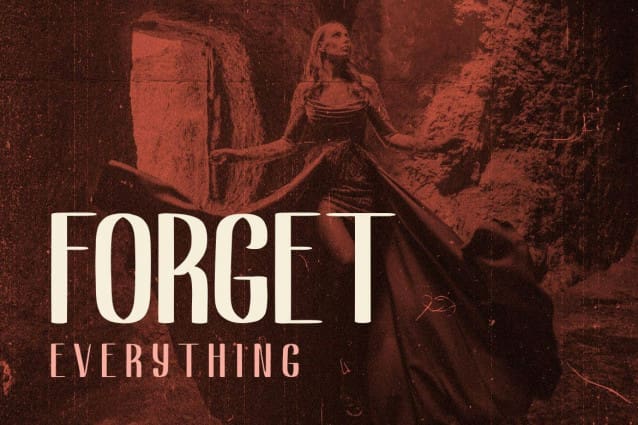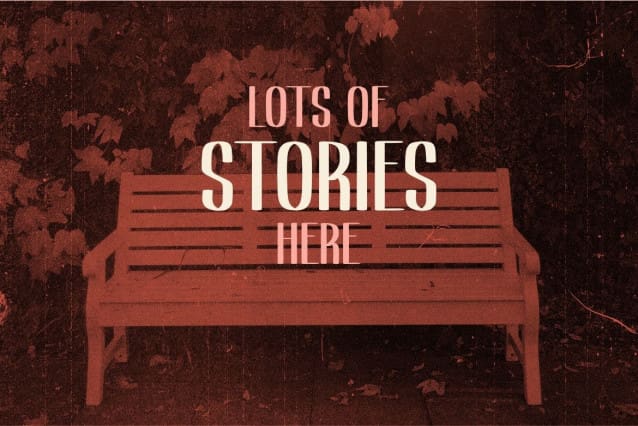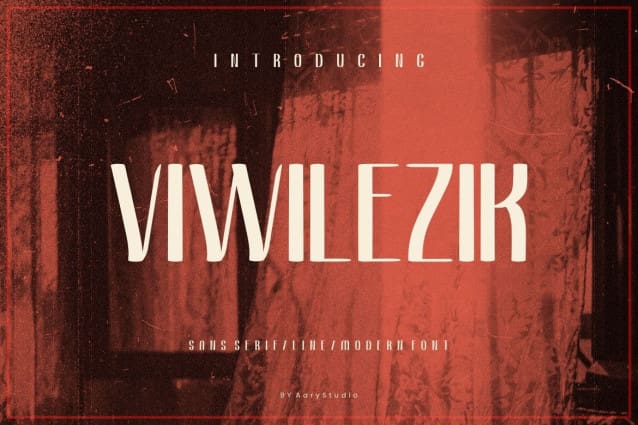
Viwilezik Font
Viwilezik Font, an elegant, simple and modern sans serif font. The feeling is elegant and beautiful. This font brings you a beautiful and modern atmosphere. suitable for posters, book covers, cards, merchandise, etc.